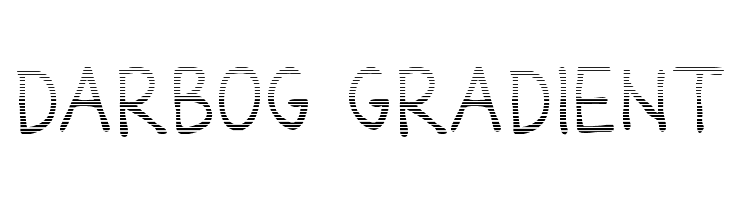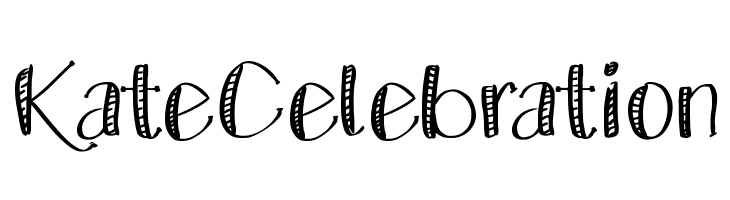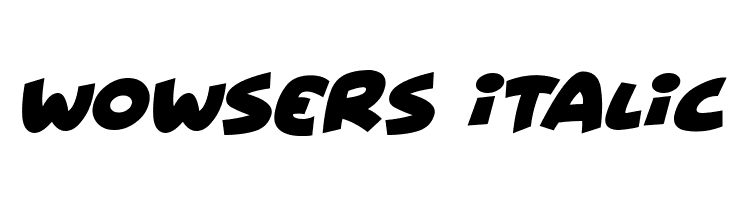
( Fonts by Xerographer Fonts )
A bold, geometric font with striped and solid sections for a modern, striking look.
( Fonts by Darko Bogdanov )
A bold, striped font with a modern and playful aesthetic.
A bold, playful font with a shadow effect, perfect for fun and engaging designs.
( Fonts by Mikel Kate )
A playful, hand-drawn font with decorative striped patterns.
A bold, cartoonish font with outlined, exaggerated curves for a playful look.
A bold, decorative font with a unique horizontal striped pattern.
A playful, hand-drawn font with bold outlines and a dotted texture.
A bold, striped font with an optical illusion effect, perfect for modern designs.
A bold, striped font with a modern, industrial feel.